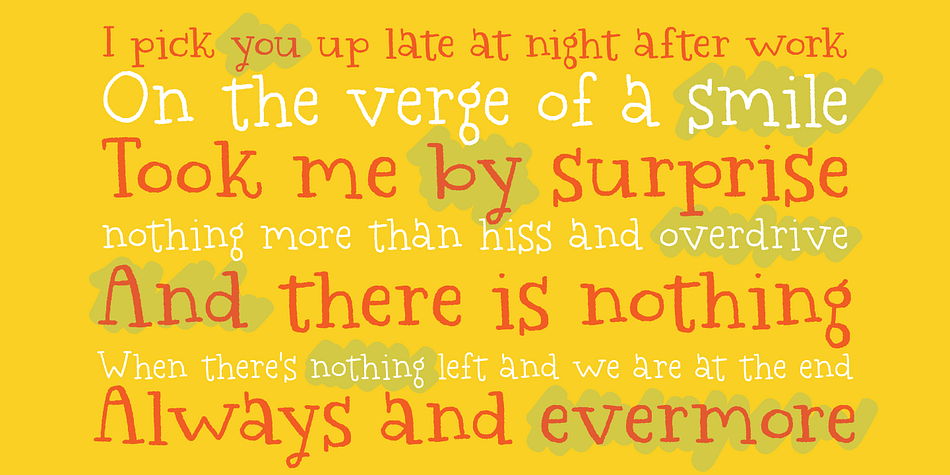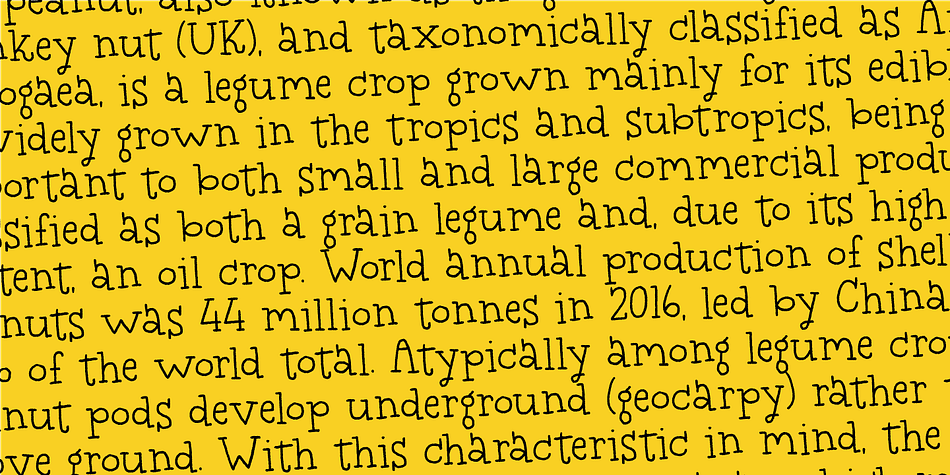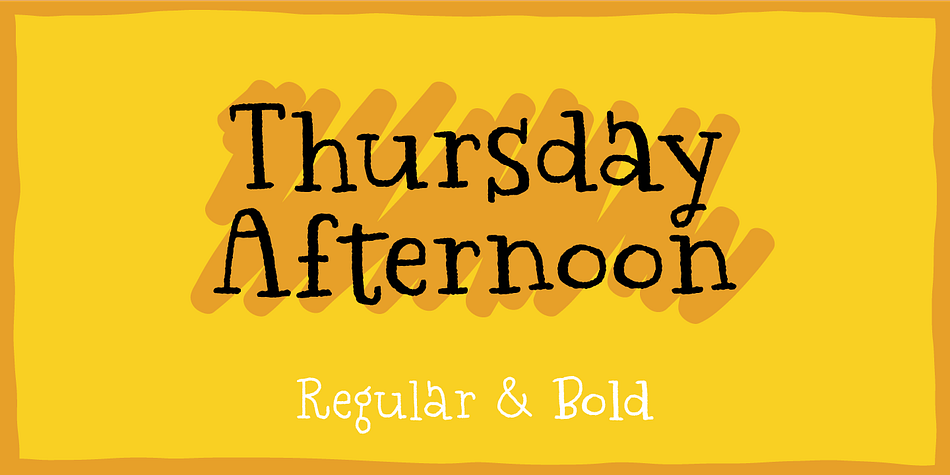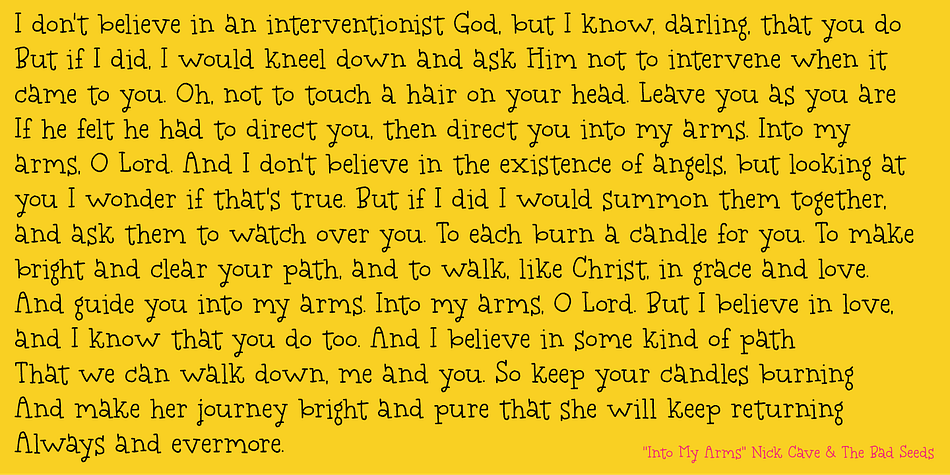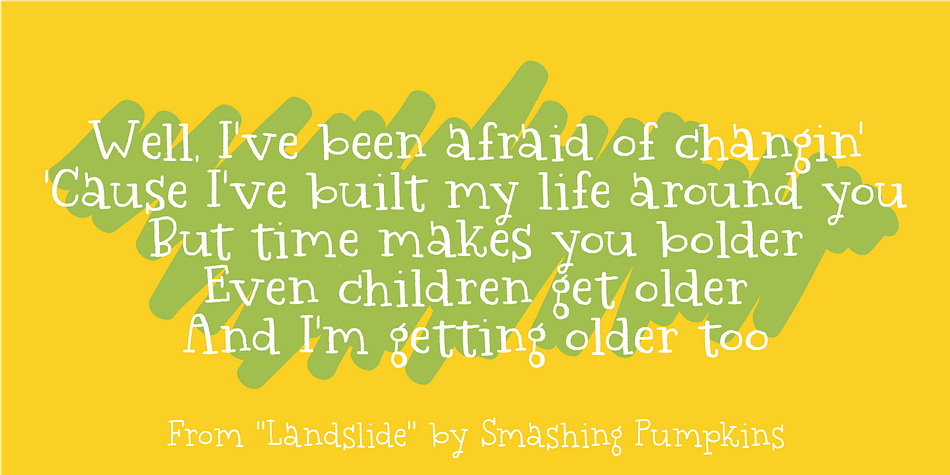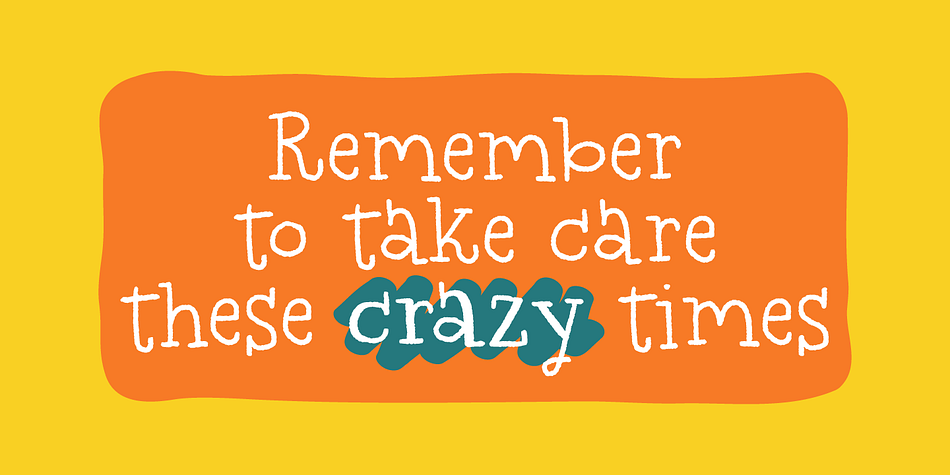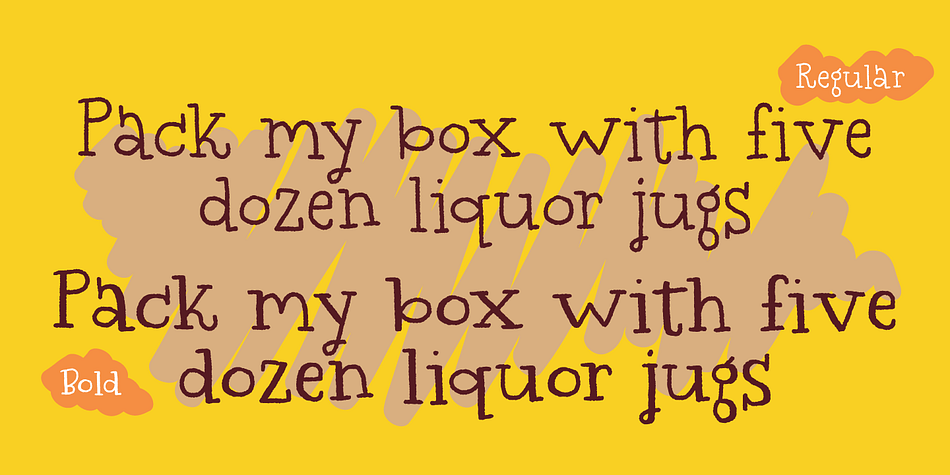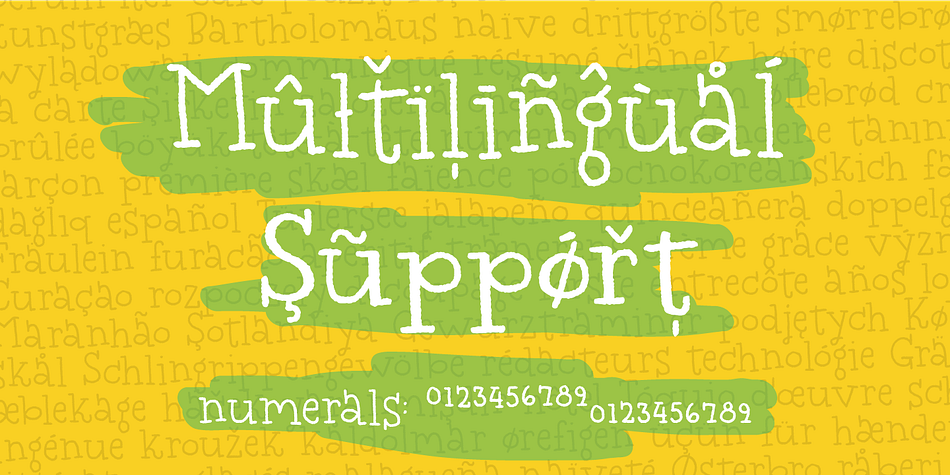
Thursday Afternoon
Designed by Jakob Fischer, Thursday Afternoon is a hand drawn and kids font family. This typeface has four styles and was published by Bogstav.
Serif are off, baseline is jumpy and even though letters follow some of the classic rules of a classic serif font…it’s all wacky and fun! But nevertheless, it is legible and can be used for mostly anything. Especially if that something needs a twist of funk! :)